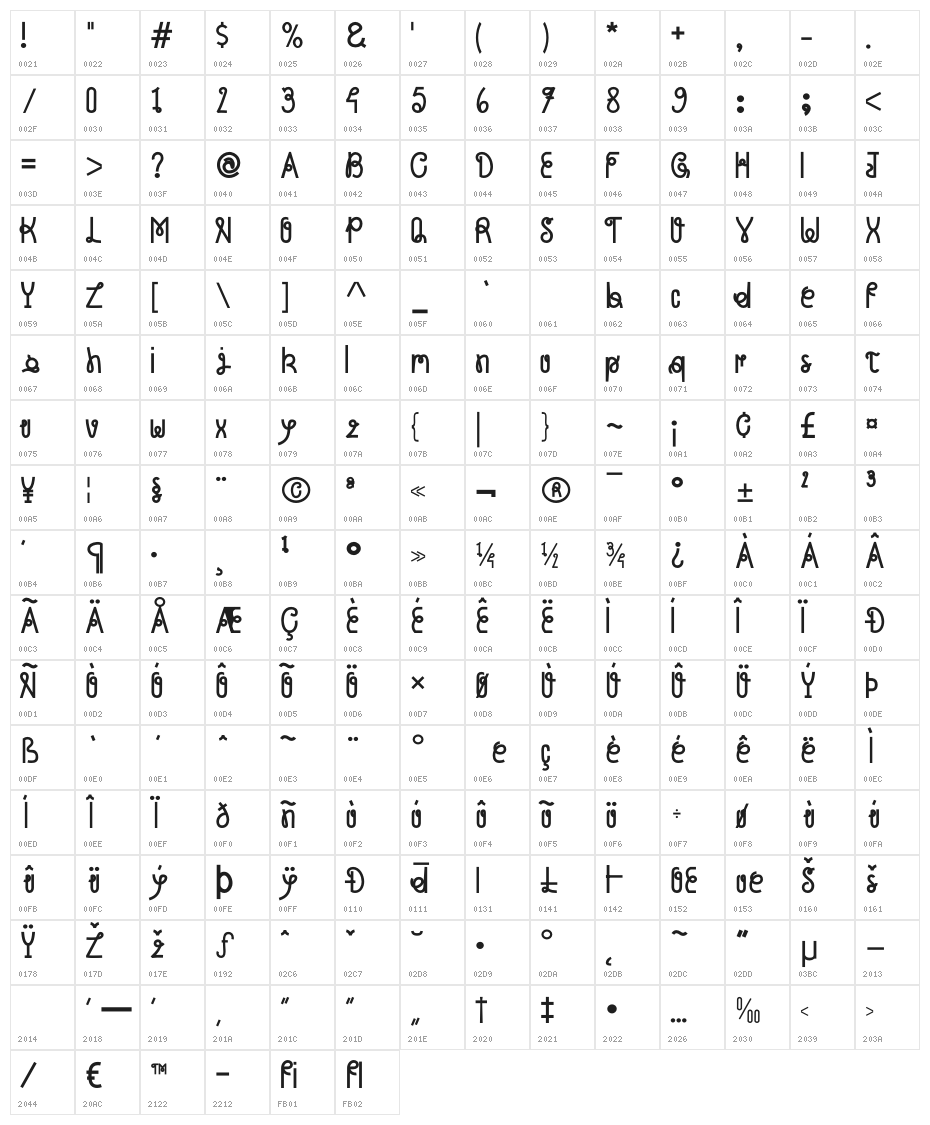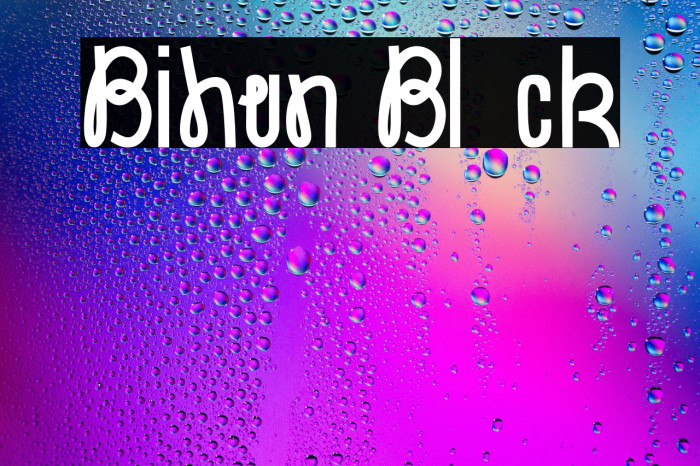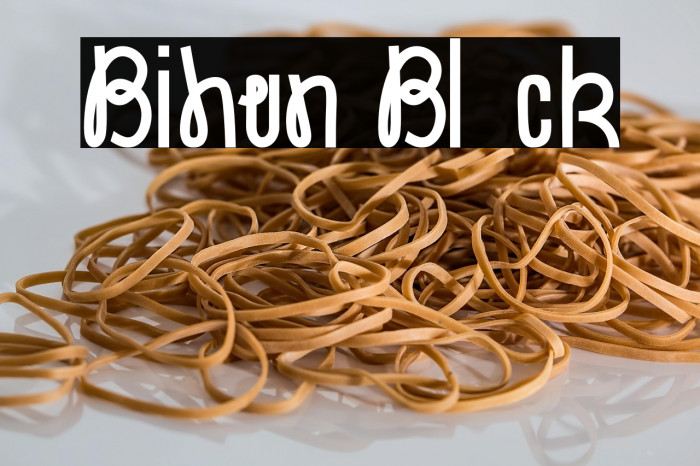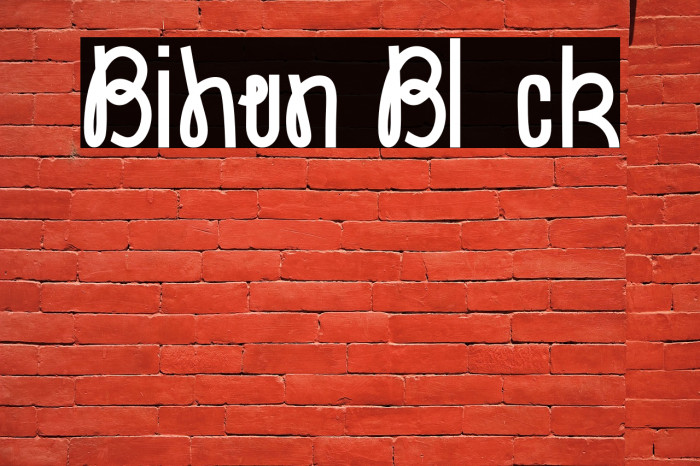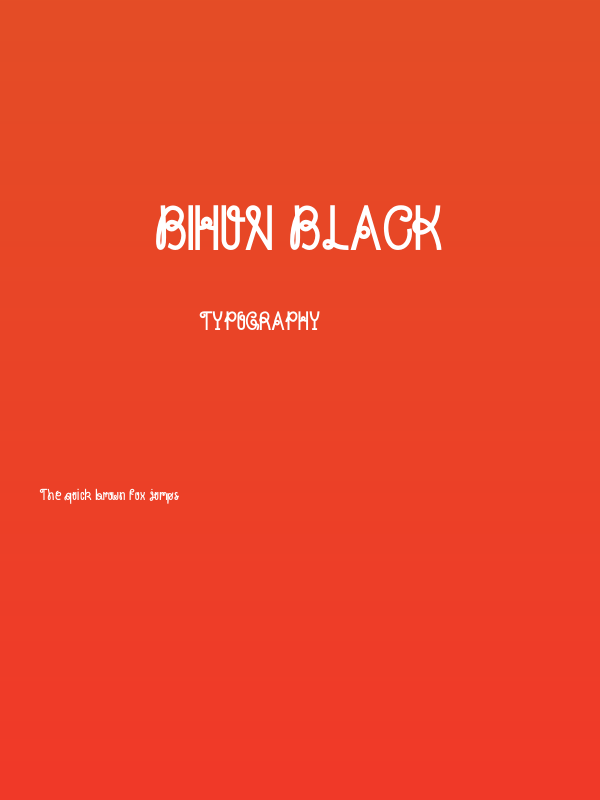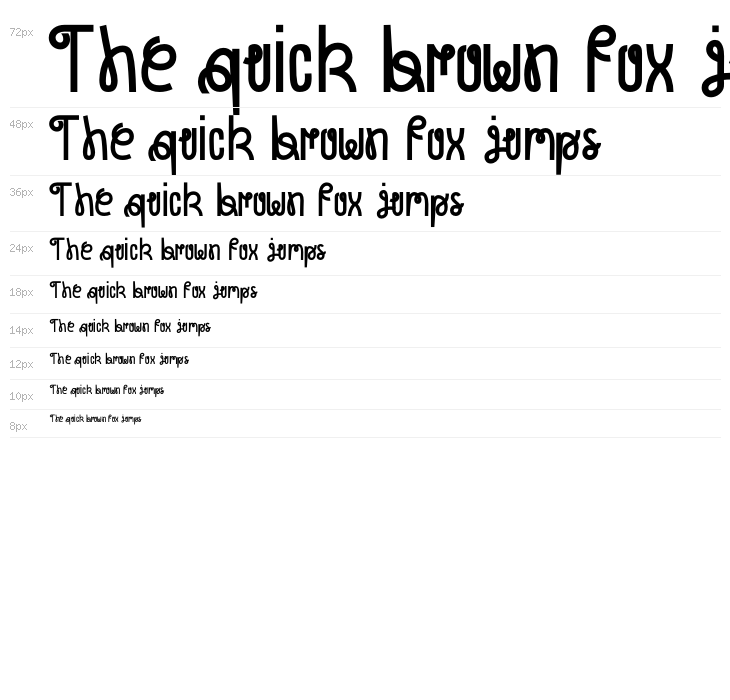
Bihun Black Font
Bihun Black Description
This font features a bold and playful design with a unique twist on traditional letterforms. Each character is crafted with a sense of whimsy, incorporating loops and curves that give it a lively and energetic appearance. The uppercase letters are particularly distinctive, with exaggerated strokes and creative flourishes that make them stand out. The lowercase letters maintain this playful style, ensuring consistency throughout the typeface. Numbers and special characters are equally bold and expressive, making them suitable for attention-grabbing designs. The overall look is both modern and artistic, perfect for projects that require a touch of creativity and fun.